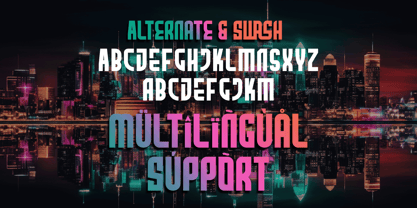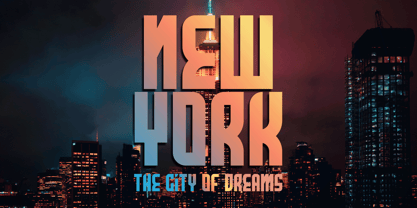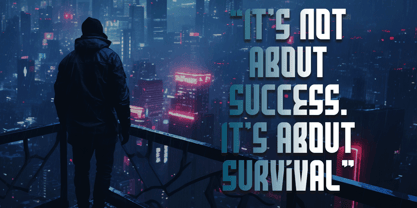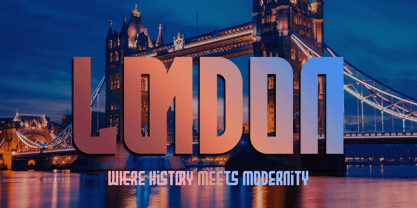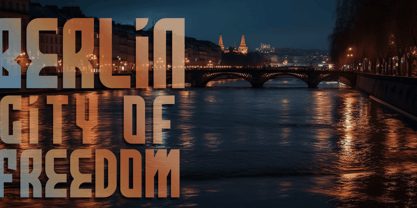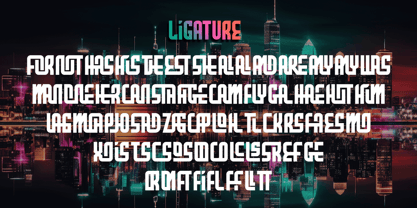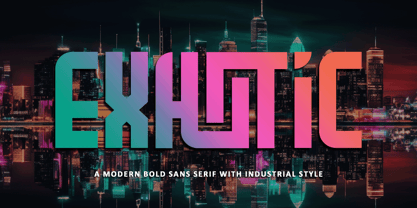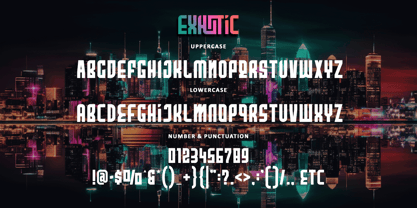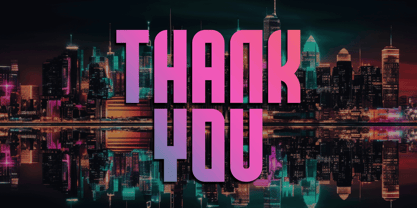
Exhotic
by Letterara
The Exhotic Font Family was designed by Thomas Aradea and published by Letterara. Exhotic contains 2 styles and family package options. More about this family
Introducing Exhotic – a modern, bold sans serif font forged with industrial strength and futuristic flair. Its blocky structure, sharp edges, and unique letterforms make it the perfect choice for designs that demand authority, impact, and style. With uppercase, lowercase, alternates, swashes, ligatures, numbers, punctuation, and multilingual support, Exhotic is crafted to give you full creative freedom. Whether you’re designing bold headlines, powerful logos, urban posters, sports branding, tech products, or apparel design, Exhotic ensures your message stands strong and unforgettable. Let Exhotic transform your design into a statement of strength, modernism, and creativity. A font built not just for display—but for domination.
Designers: Thomas Aradea
Foundry: Letterara